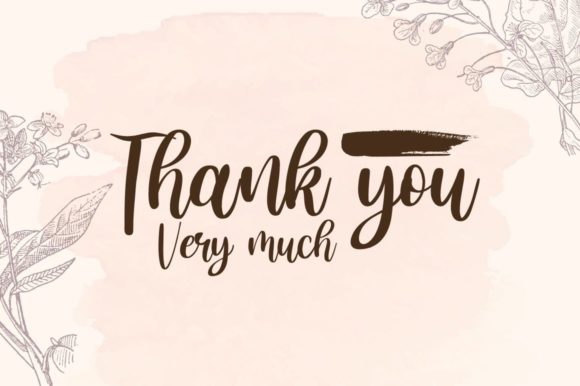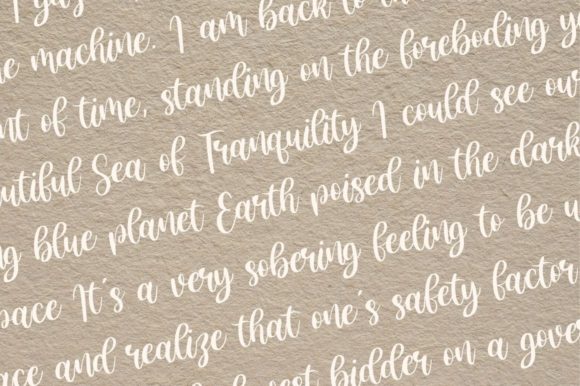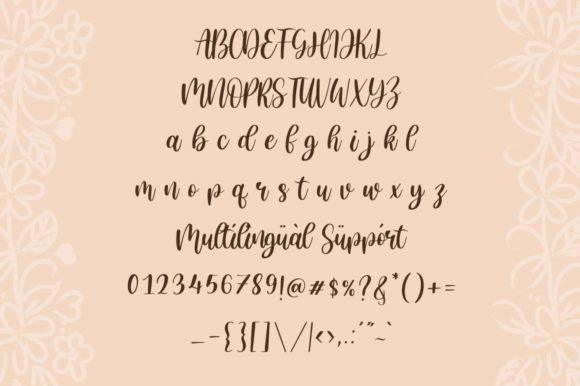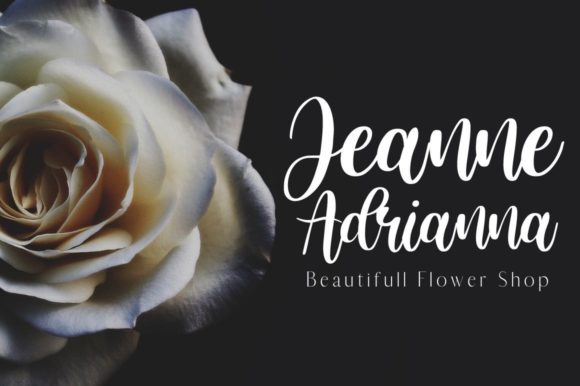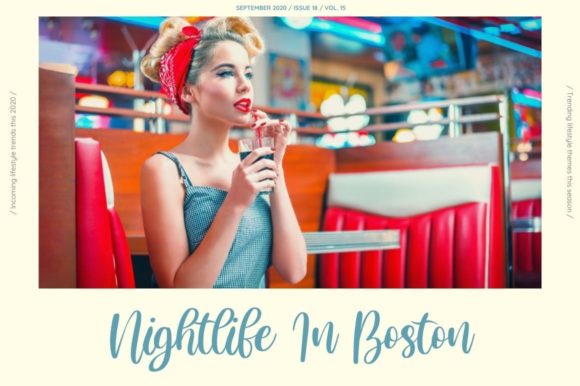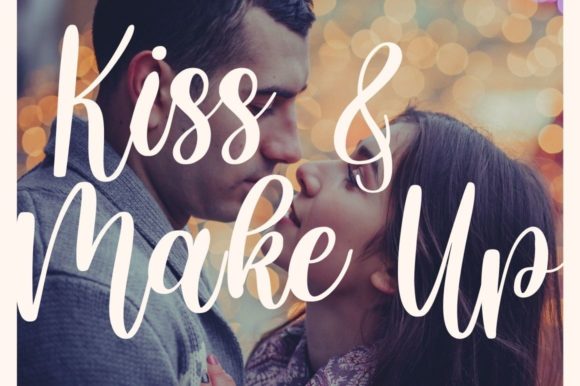
Bathory Font: The Elegant Choice for Your Design Needs
Are you looking for a font that exudes charm and elegance? Look no further than the Bathory font. This beautiful font is perfect for adding a touch of sophistication to your designs, whether you’re working on wedding invitations, thank you cards, quotes, greeting cards, logos, business cards, or any other project that requires a customized look.
What is Bathory Font?
Bathory font is a stylish and refined typeface that has gained popularity among designers and crafters. Its elegant and charming appearance makes it an ideal choice for a wide range of design projects. The font is named after the famous Hungarian countess, Elizabeth Báthory, who was known for her beauty and elegance.
Key Features of Bathory Font
- Elegant and Charming: Bathory font has a unique and sophisticated look that adds a touch of elegance to any design.
- Versatile: This font is perfect for a wide range of design projects, including wedding invitations, thank you cards, quotes, greeting cards, logos, business cards, and more.
- Customizable: Bathory font can be easily customized to fit your design needs, making it a great choice for designers and crafters.
- High-Quality: The font is designed with high-quality and clear lines, making it perfect for both digital and print designs.
Uses of Bathory Font
Bathory font is a versatile typeface that can be used for a variety of design projects. Here are some of the most popular uses of this elegant font:
- Wedding Invitations: Add a touch of elegance and sophistication to your wedding invitations with Bathory font.
- Thank You Cards: Express your gratitude with beautifully designed thank you cards featuring Bathory font.
- Quotes: Make your quotes stand out with the elegant and charming appearance of Bathory font.
- Greeting Cards: Create stunning greeting cards for special occasions, such as birthdays, anniversaries, and holidays.
- Logos: Use Bathory font to create a unique and memorable logo for your business or brand.
- Business Cards: Add a touch of professionalism and elegance to your business cards with Bathory font.
Why Choose Bathory Font?
There are many reasons why designers and crafters choose Bathory font for their design projects. Here are some of the top reasons:
- Unique and Elegant: Bathory font has a unique and elegant appearance that sets it apart from other fonts.
- Highly Customizable: This font can be easily customized to fit your design needs, making it a great choice for designers and crafters.
- Versatile: Bathory font can be used for a wide range of design projects, making it a great addition to any design library.
- Easy to Read: The font is designed with clear lines and is easy to read, making it perfect for both digital and print designs.
In conclusion, Bathory font is a beautiful and elegant typeface that is perfect for designers and crafters looking to add a touch of sophistication to their designs. Its versatility, customizability, and high-quality design make it a great choice for a wide range of design projects. Whether you’re working on wedding invitations, thank you cards, quotes, greeting cards, logos, business cards, or any other design project, Bathory font is sure to impress.
Tips and Tricks for Using Bathory Font
- Pair it with Other Fonts: Bathory font can be paired with other fonts to create a unique and interesting design.
- Experiment with Colors: Try out different colors and color combinations to find the perfect look for your design.
- Use it for Headings and Titles: Bathory font is perfect for headings and titles, adding a touch of elegance and sophistication to your design.
- Don’t Overuse it: While Bathory font is beautiful, it’s best to use it sparingly to avoid overwhelming your design.